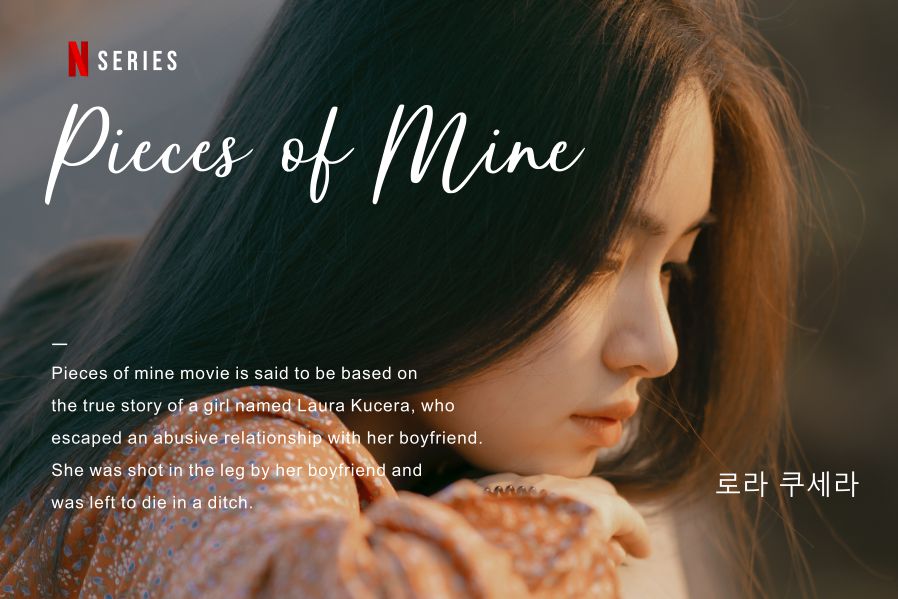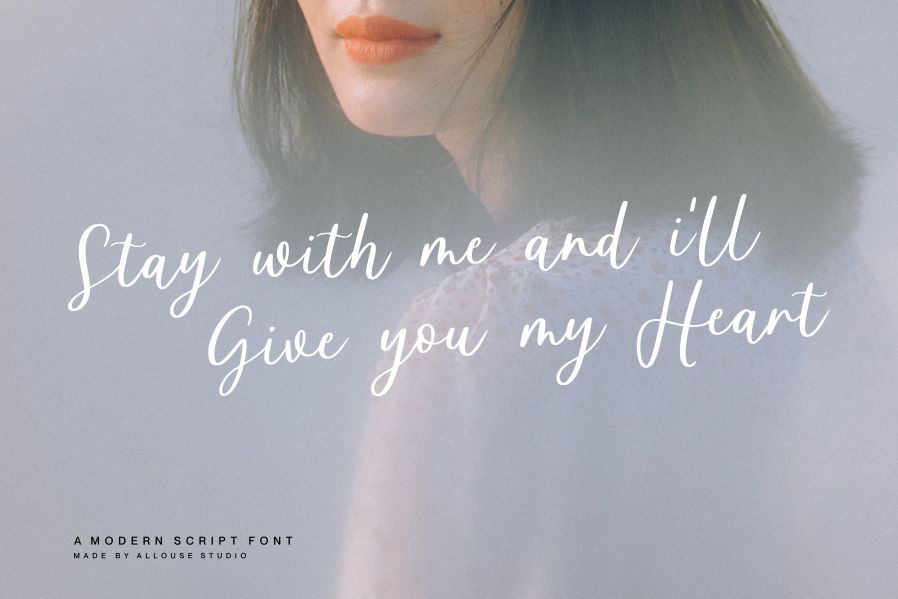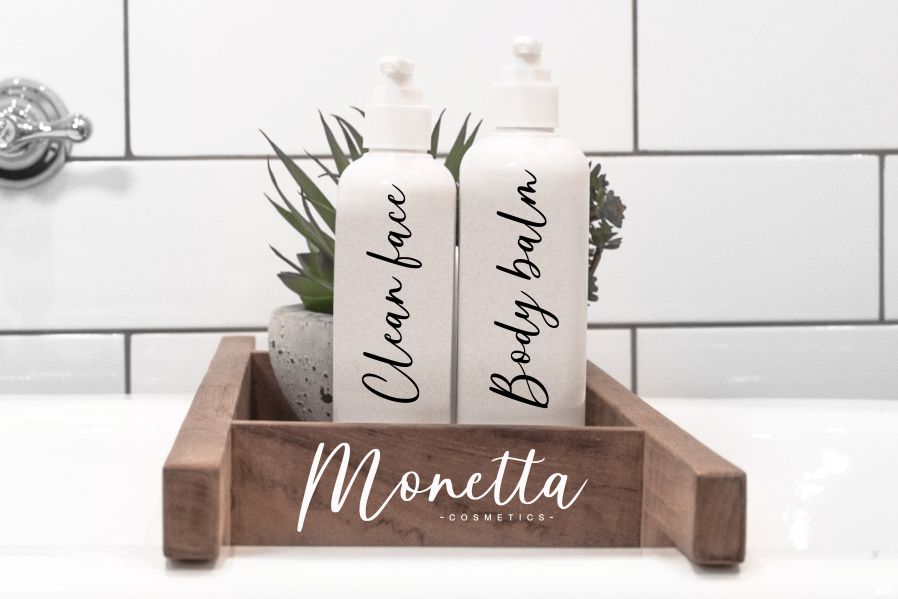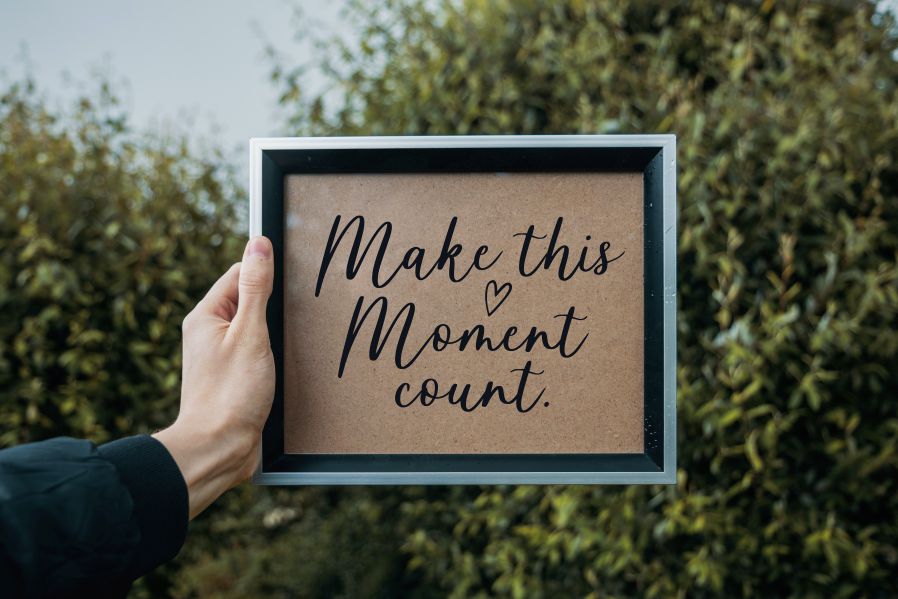
Hometheater Font
Hometheater Script Font
This is a delicate, elegant and flowing handwritten font. It has beautiful and well balanced characters and as a result, it matches a wide pool of designs. Add it to your most creative ideas and notice how it makes them come alive! This font is PUA encoded which means you can access all of the amazing glyphs and ligatures with ease!